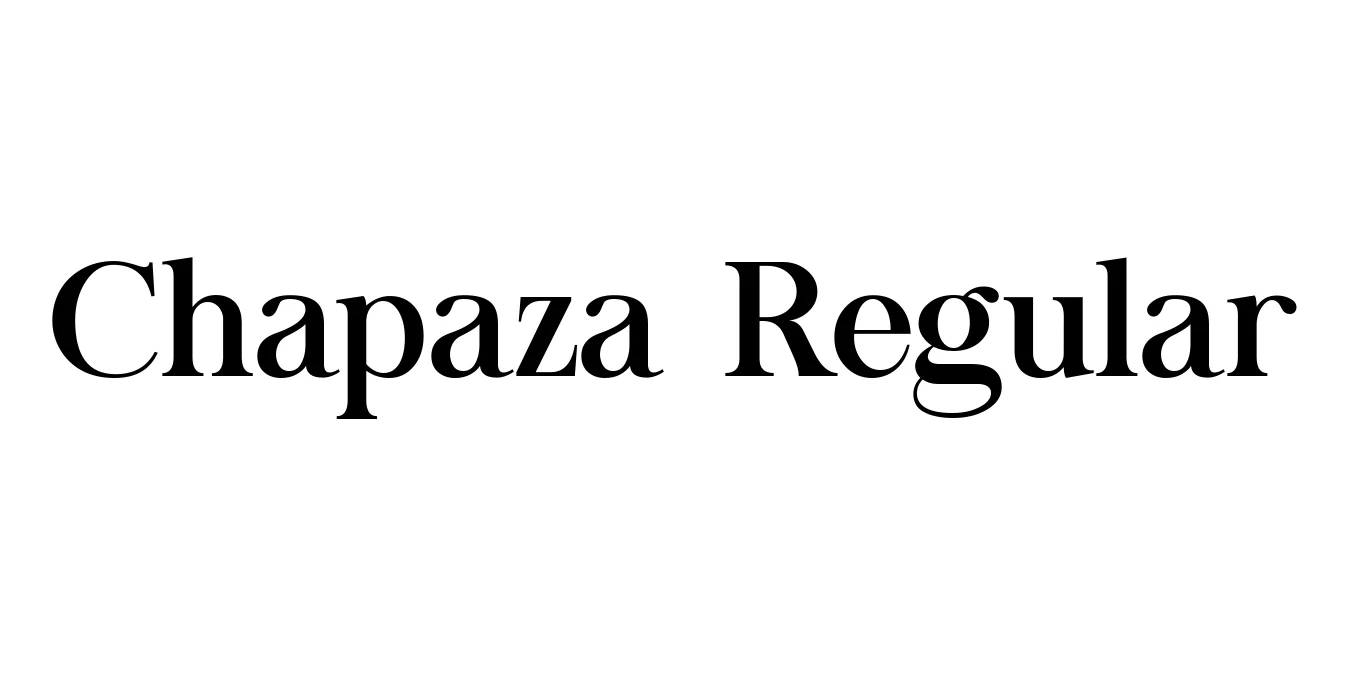
Chapaza Regular
Designed by Humberto Gillan
| Font Name | Chapaza |
| Category | Serif / Display |
| Designer | Humberto Gillan |
Chapaza Regular is an elegant and sophisticated serif typeface that bridges the gap between traditional typography and modern display aesthetics. Designed with a keen eye for balance, it features high-contrast strokes and sharp, refined terminals that give it a distinctive personality. This font is particularly effective in settings where visual impact and elegance are paramount, making it a go-to choice for designers aiming for a premium feel.
Throughout its use in the design community, Chapaza has proven to be highly versatile, performing exceptionally well in both print and digital mediums. Its unique character shapes provide a vintage charm while maintaining a clean, contemporary edge. Whether used for high-end fashion branding or sophisticated editorial layouts, Chapaza Regular offers a timeless quality that enhances the overall professional tone of any creative project.
Chapaza Regular Best Uses
Perfect for creating memorable and high-end brand identities.
Excellent for magazine mastheads, book covers, and layout headings.
Adds a touch of sophistication to website hero sections and titles.
Ideal for luxury product packaging that requires a classic yet modern look.